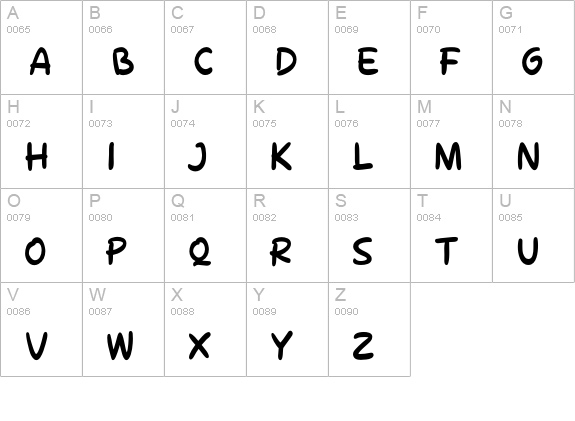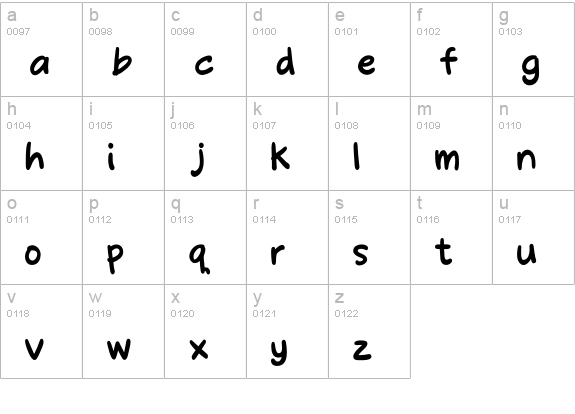
Molly Jack Font Font Details
Molly Jack Font is a free for personal use font in the Dingbats > Kids category, designed by ketapel. It has been downloaded 205 times and is available for Windows, Mac and Linux.
Introducing Molly Jack Font, a stylish and versatile typeface that is sure to make your designs stand out. This elegant font features intricate details and a unique charm that is perfect for a wide range of projects. Whether you're creating invitations, logos, posters, or any other design, Molly Jack Font will add a touch of sophistication and flair.